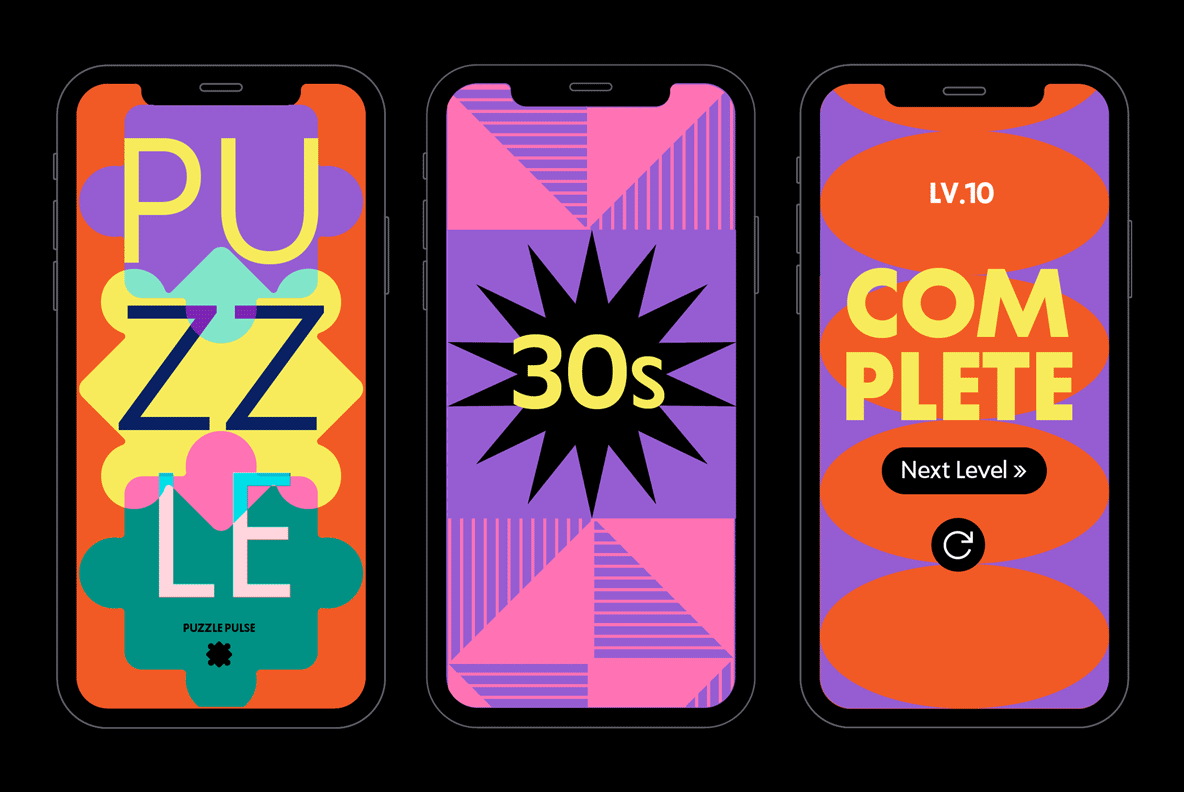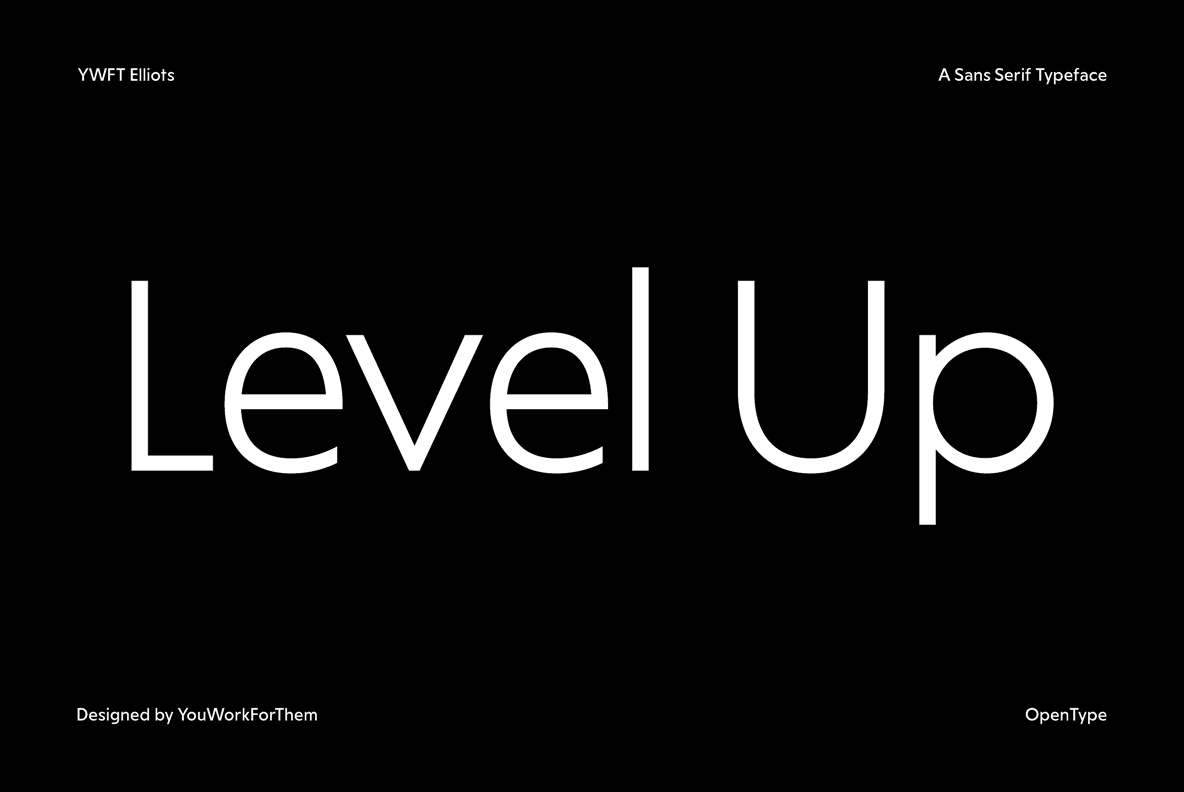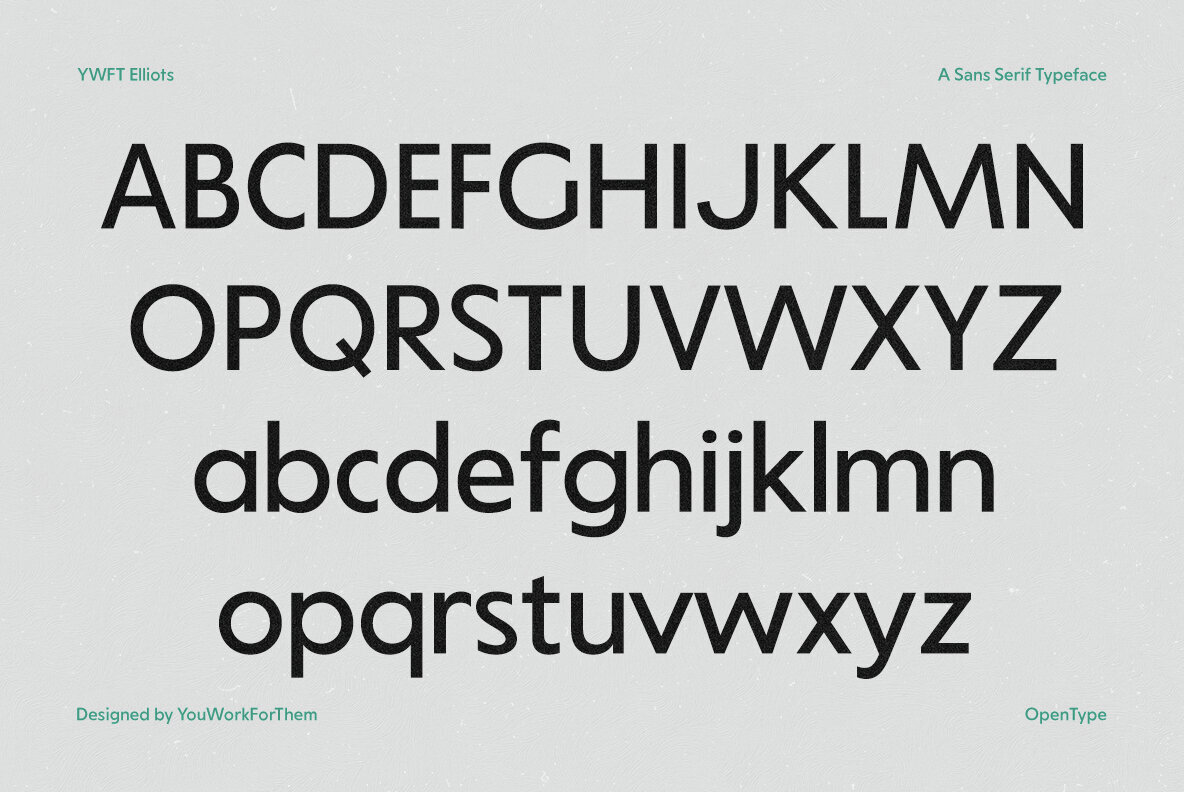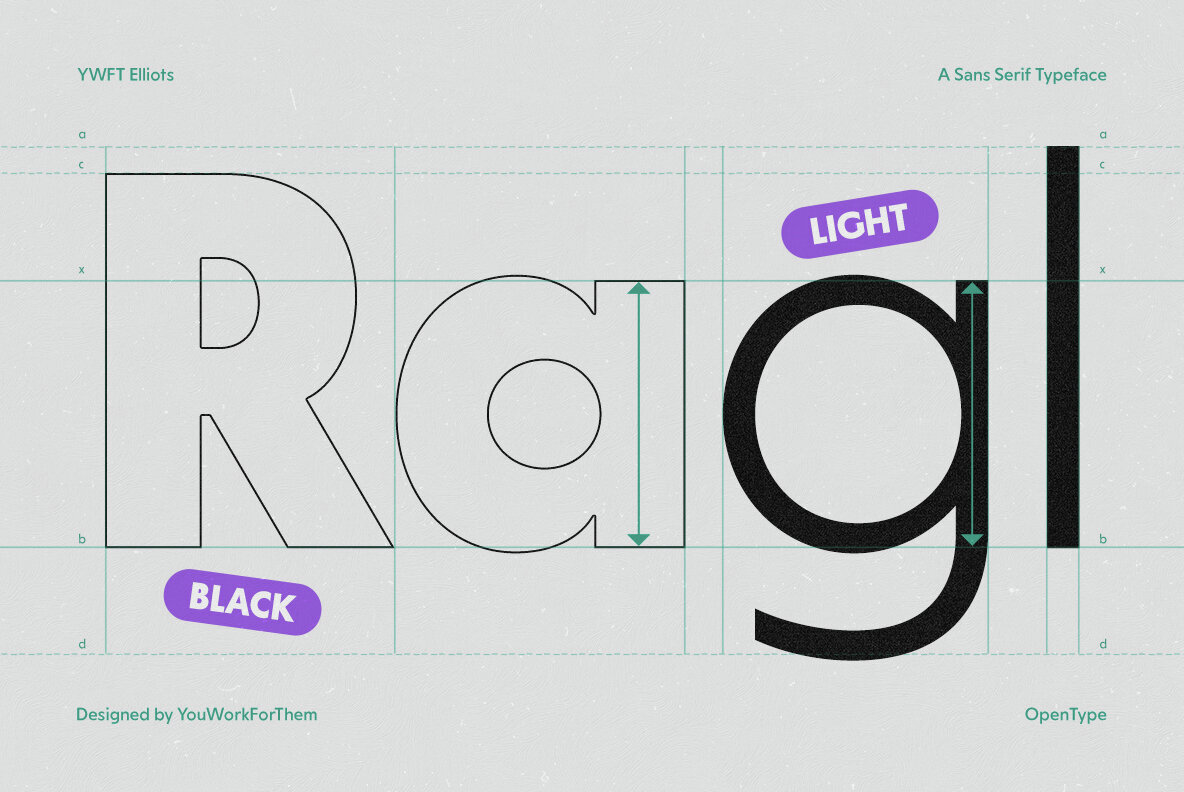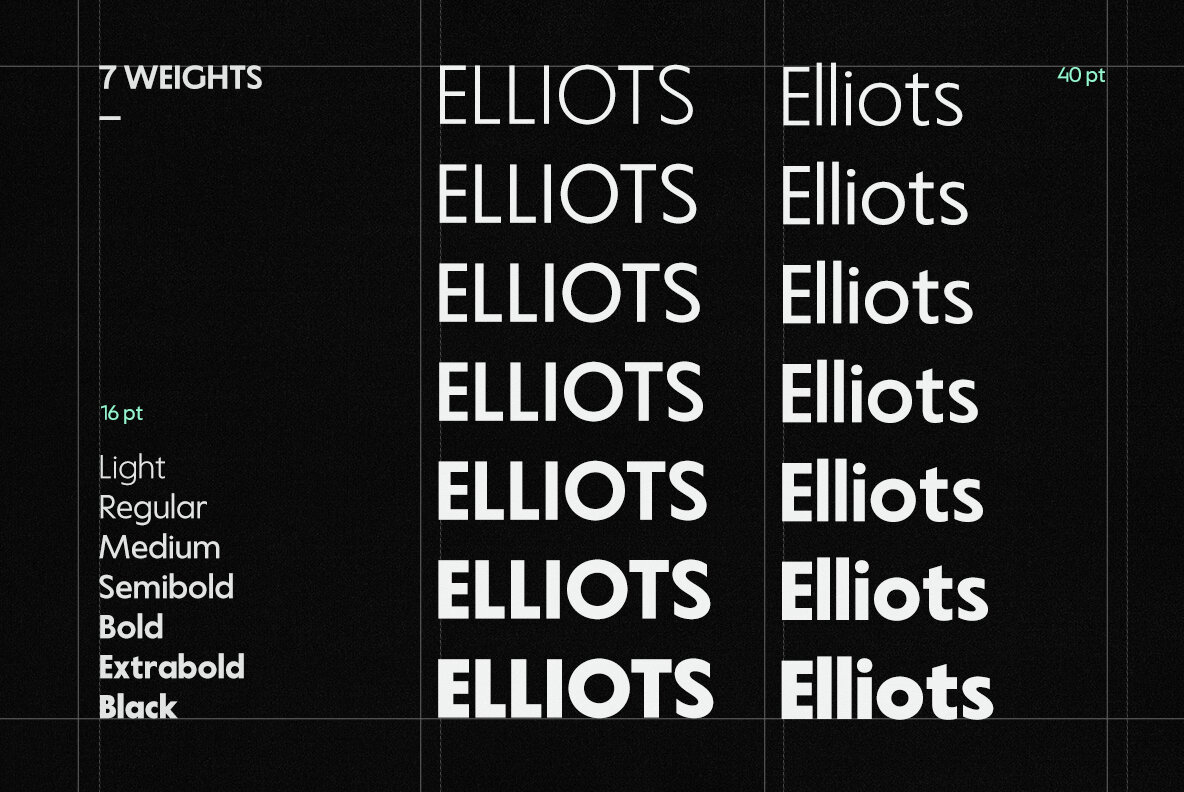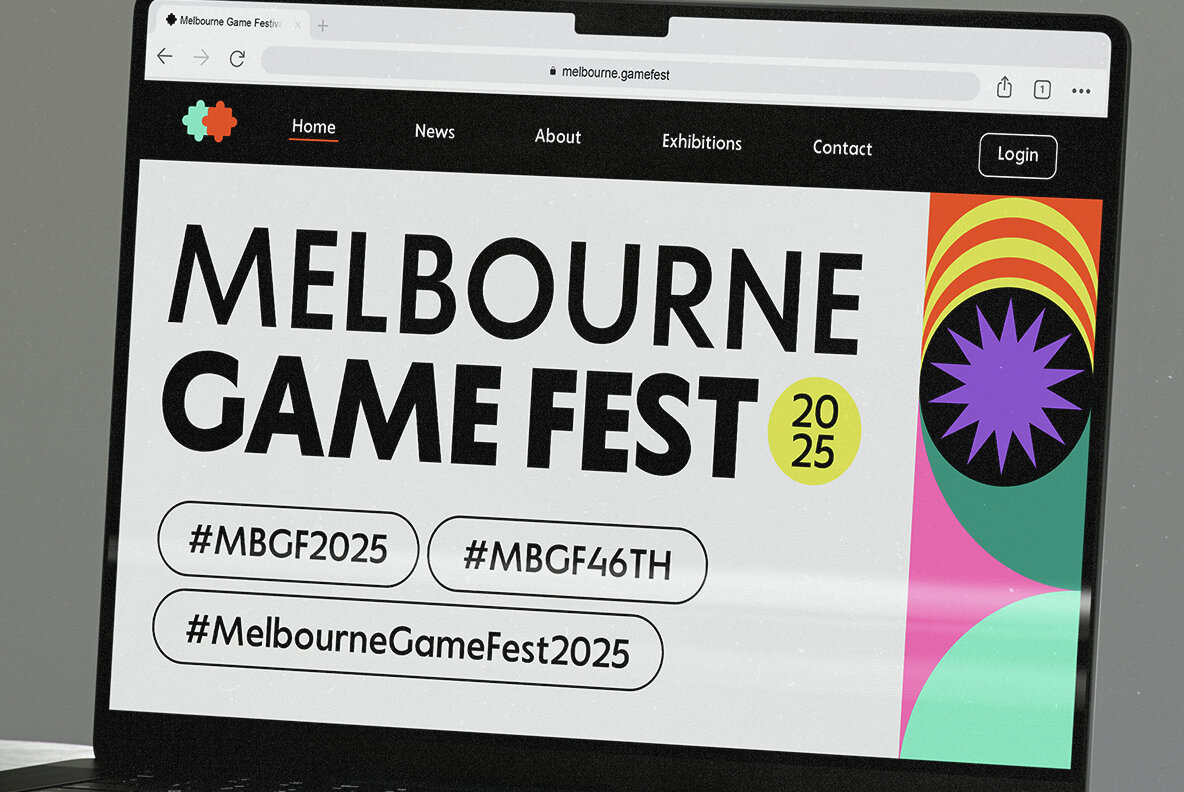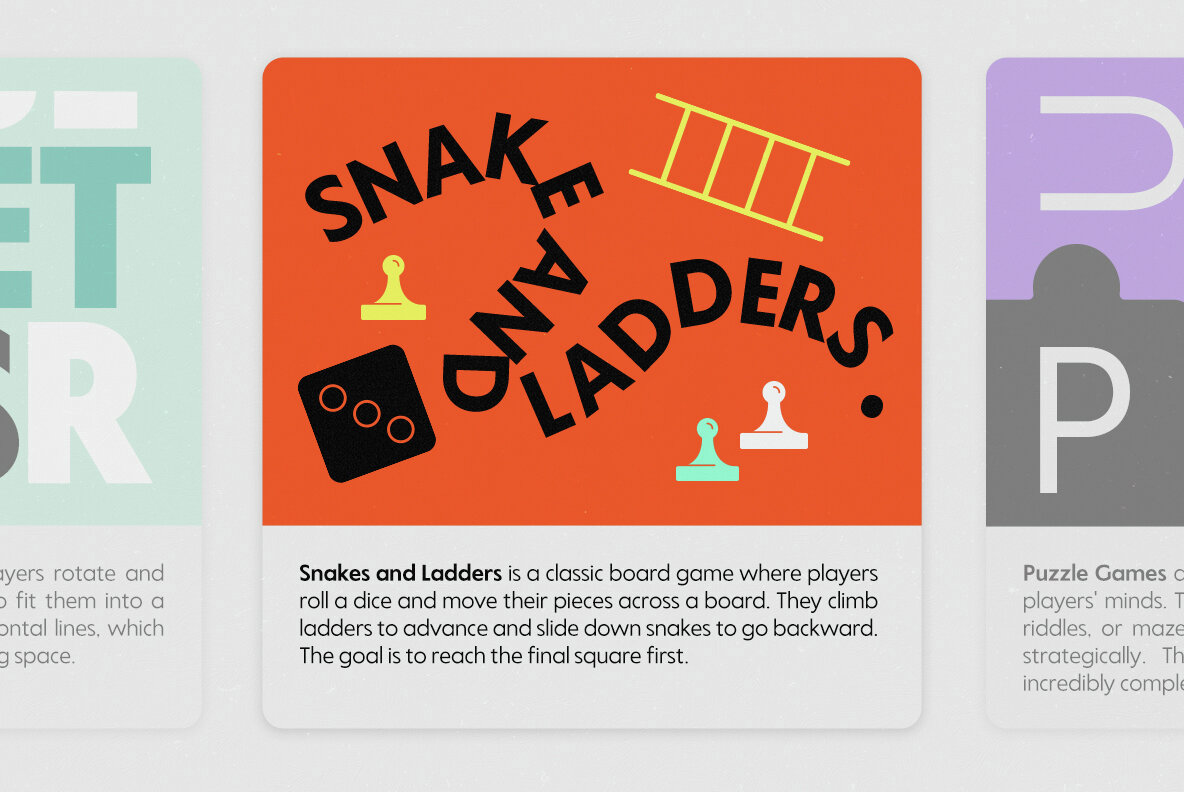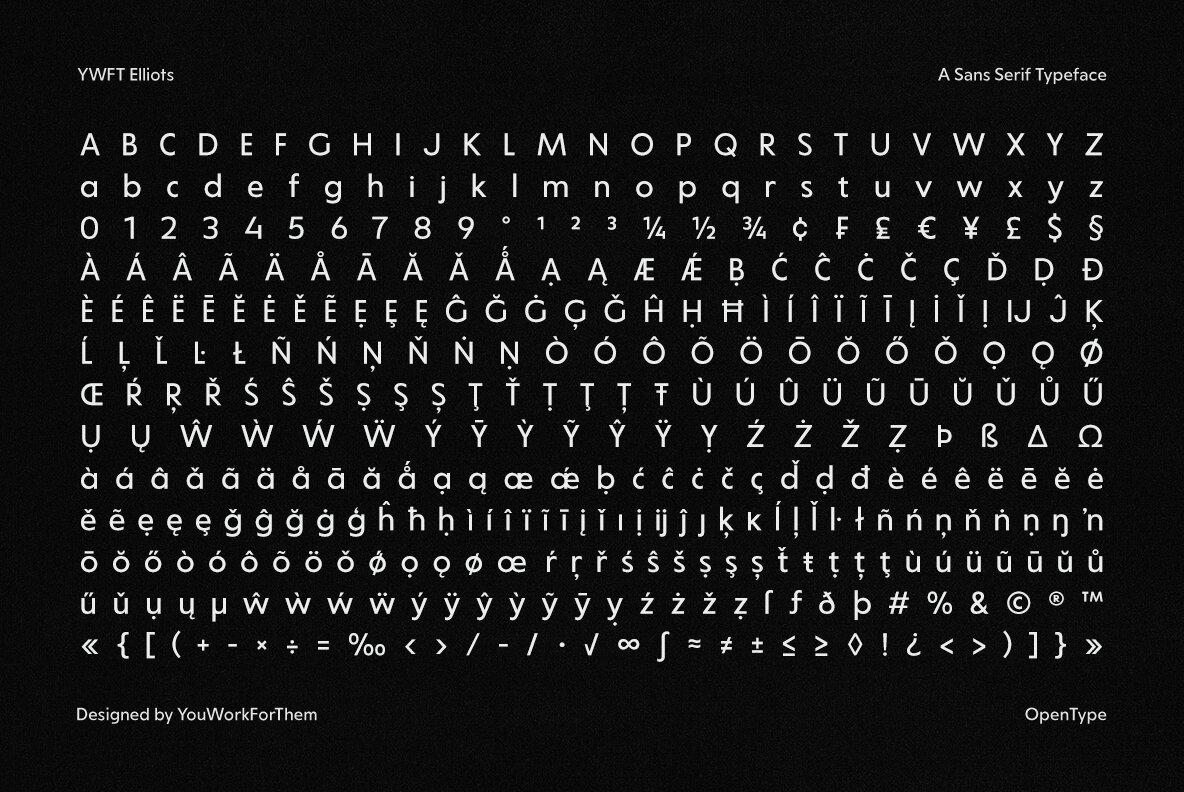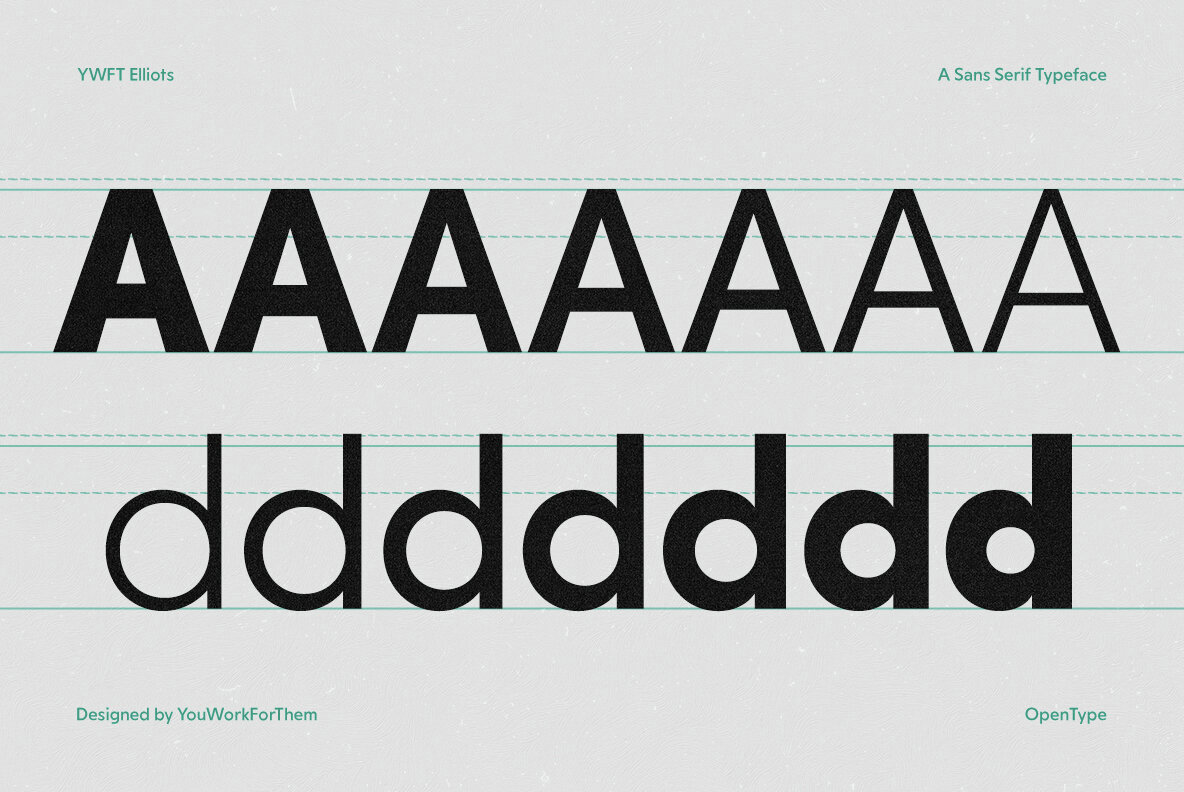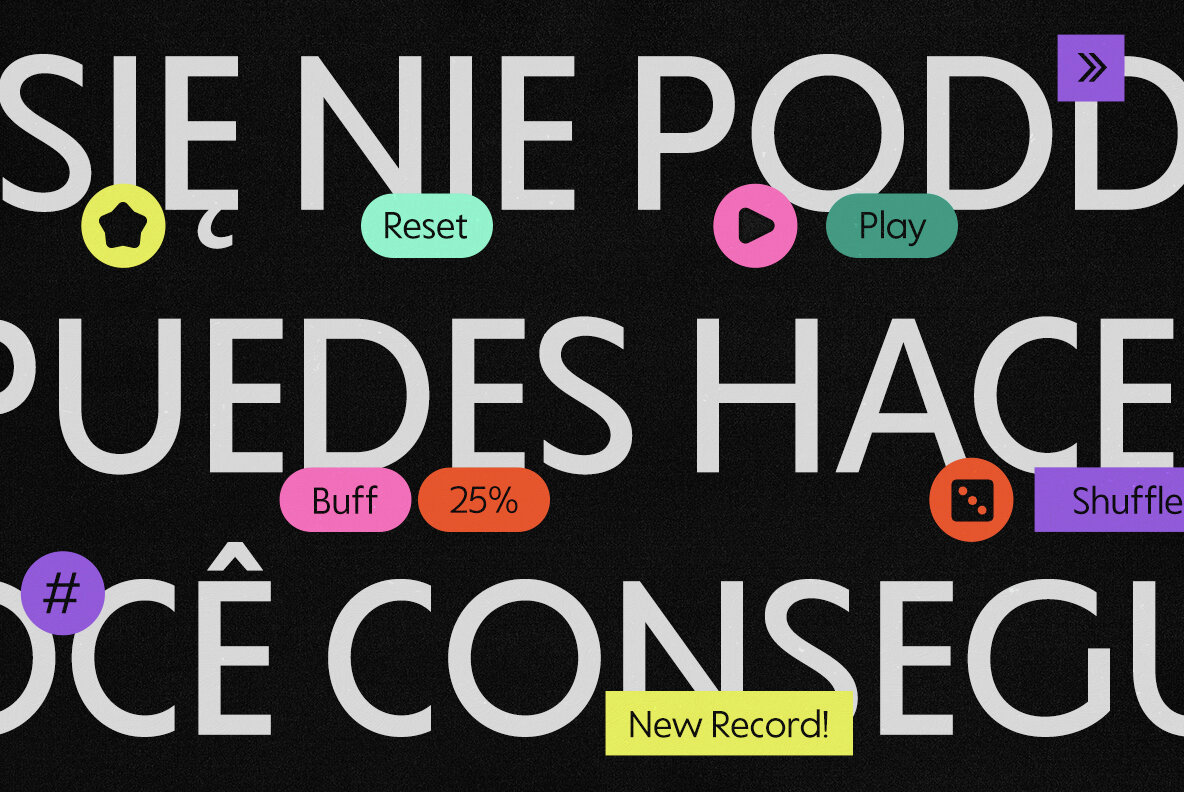
YWFT Elliots Font
YWFT Elliots, a YouWorkForThem exclusive, delivers a modern and minimalist geometric sans-serif design tailored for today's digital and branding needs. With its sleek, condensed letterforms and consistent proportions, Elliots ensures both legibility and style in equal measure, making it a go-to choice for interface designs and corporate projects. Every font in the Elliots family is equipped with over 450 glyphs, offering advanced typographic options to support your creativity: The Elliots collection includes seven carefully designed weights, from light to black, providing flexibility for both subtle and bold designs. A free demo option lets you test-drive the font before purchasing, giving you confidence in its application to your specific needs. This condensed sans-serif typeface is ideal for: Explore YWFT Elliots and discover how its versatile design can enhance your next creative project. Additional products used for slideshow images:YWFT Elliots: A Precision-Driven Condensed Sans-Serif
Extensive Glyph Set and Features
Font Family Overview
Design Versatility
Key Benefits